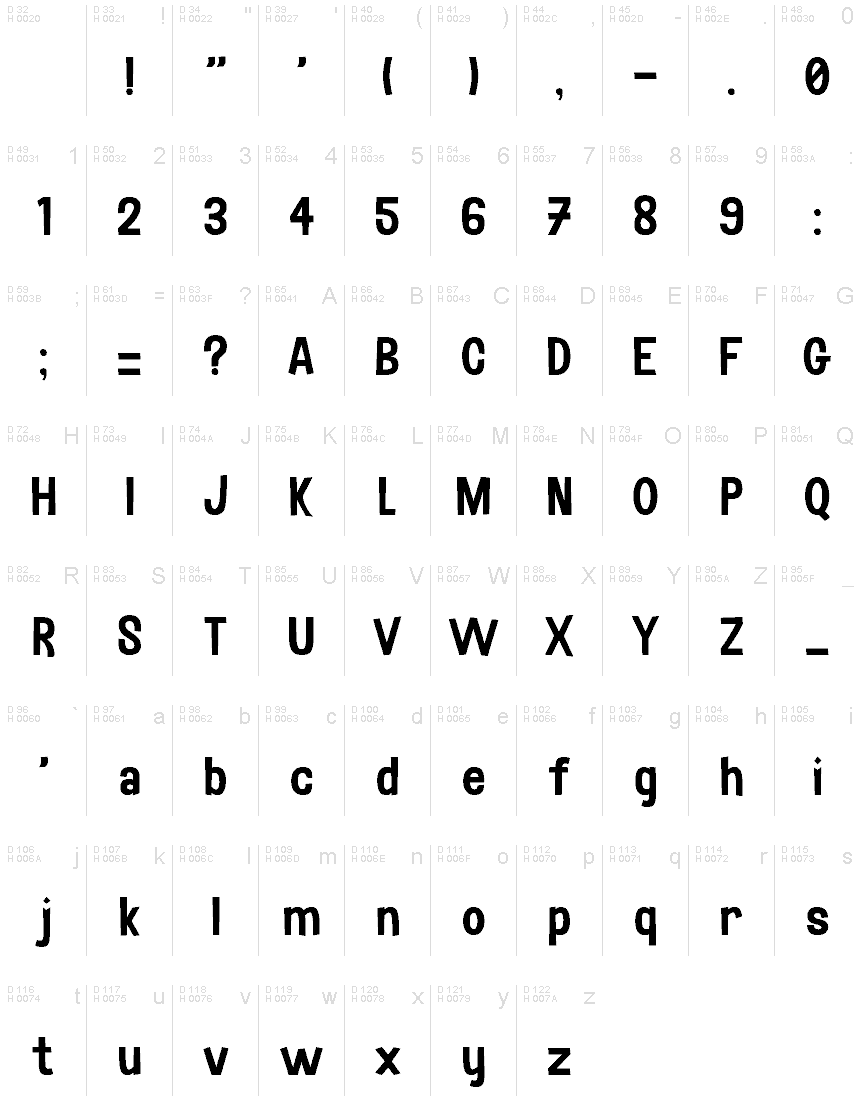
aix milan
Aix Milan font is a modern display typeface by Anthony Colomb. It takes on visual attributes of cleanliness and minimalism, presenting robust and structured letter forms to the viewer. With strong visual geometry seen through sharp edges, lines, and angles; this font can successfully grab attention in any design collection used.
Free for all designing purpose, Aix Milan will enhance your posters, books covers, digital artworks, magazines spreads or covers. It also provides a modern edge to product packaging layouts, app designs (interface), movie poster/album art design projects.